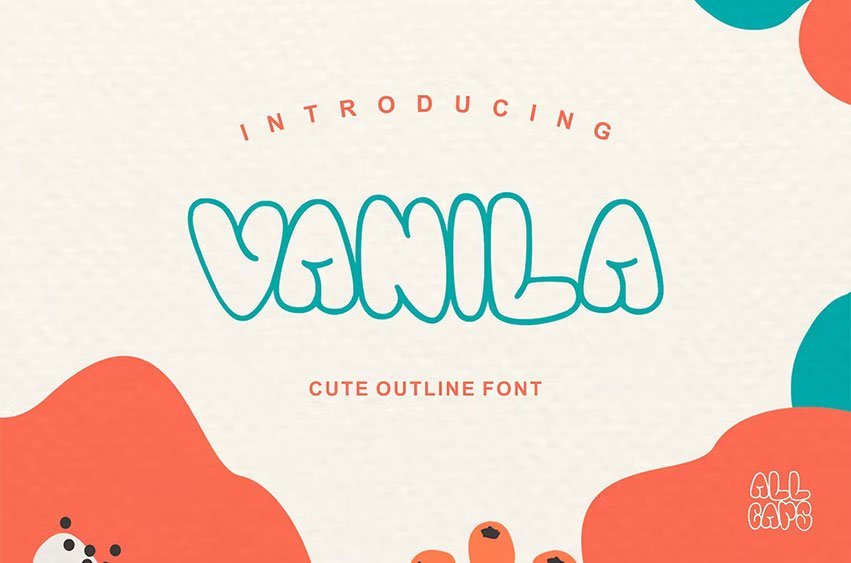
Vanila Font is a cute outline and very cheerful display font. Filled with ALL CAPS with cute and funny shapes, Inspired by freestyle graffiti writing, Add this lovely and dynamic font to any of your creative ideas related to school or kids, snacks and events. You will love the results. VANILA is perfect for birthday cards, kids invitations, quotes, branding, or just for fun for your art.